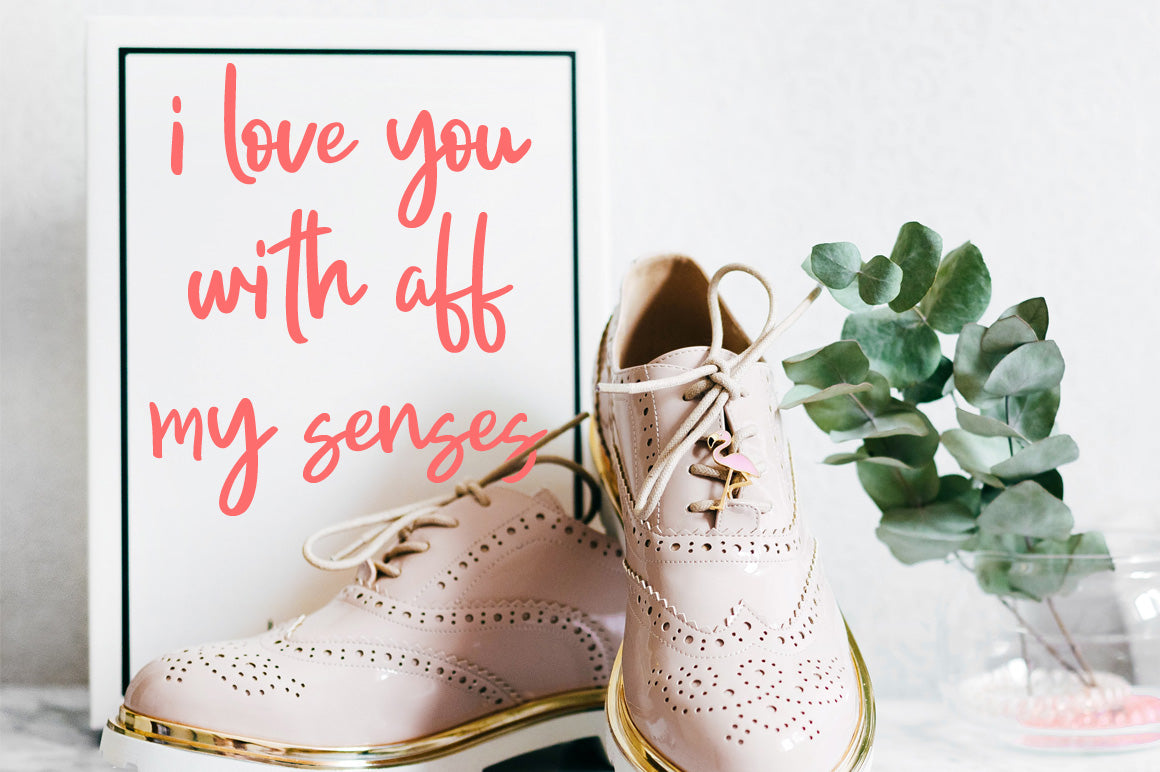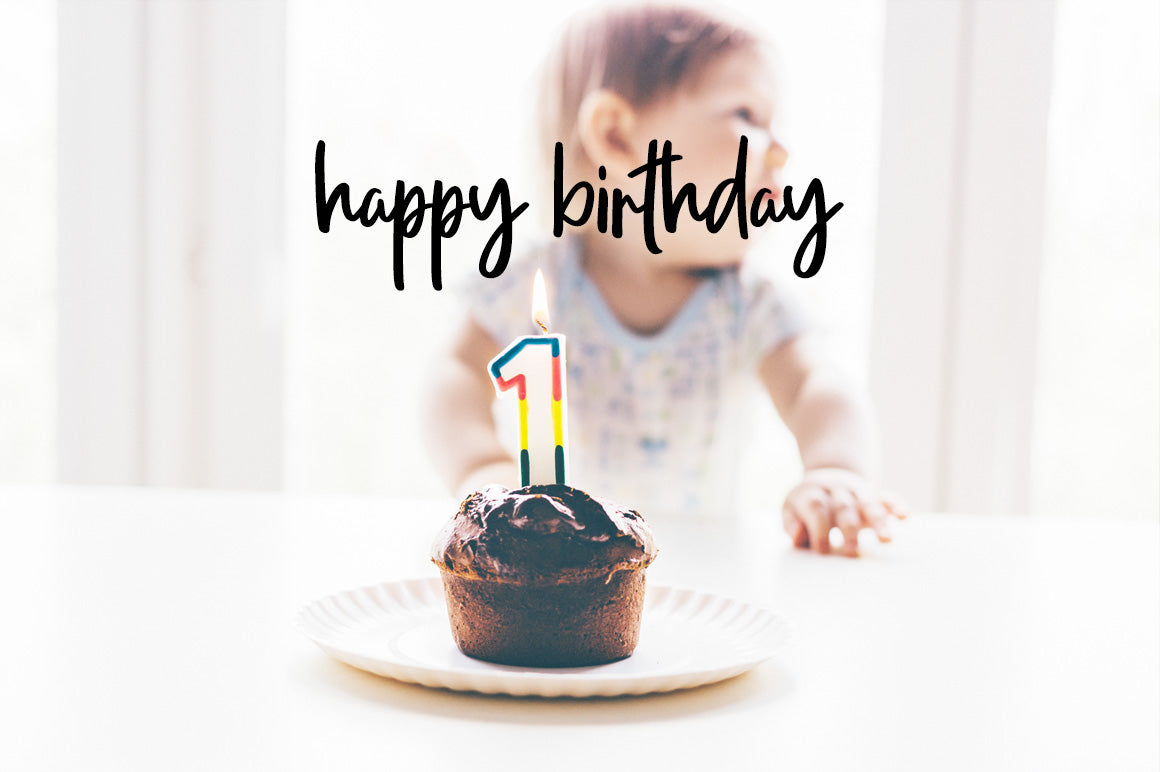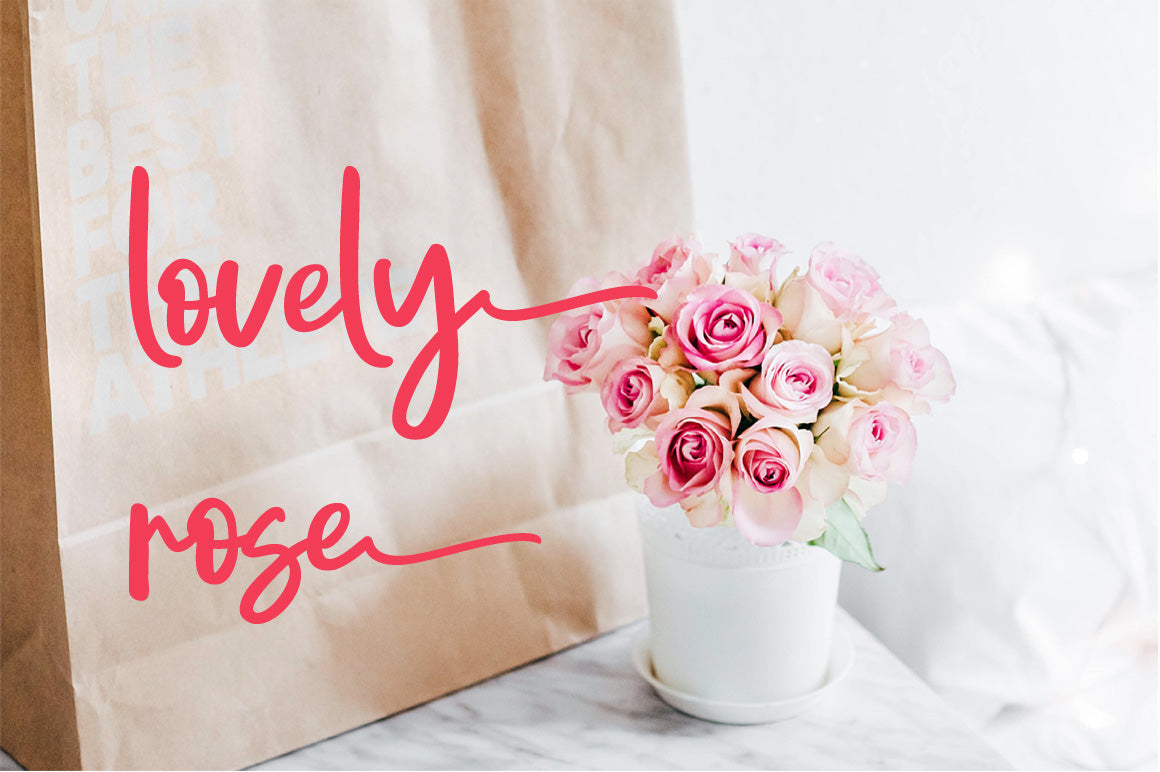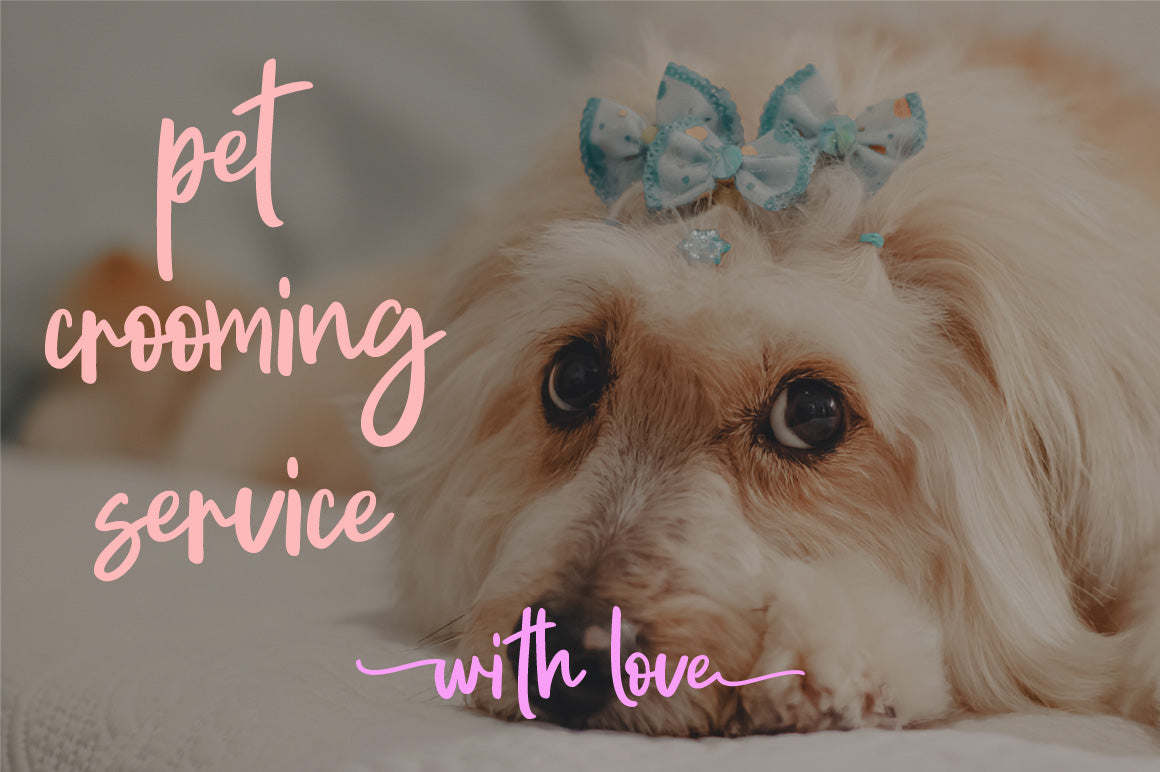
Brewoke
About Brewoke
Brewoke is a bold script carefully handcrafted to become a true favorite. Its casual charm makes it appear wonderfully down-to-earth, readable and, ultimately, incredibly versatile. Brewoke will look outstanding in any context, whether it’s being used on busy backgrounds or as a standalone headline!